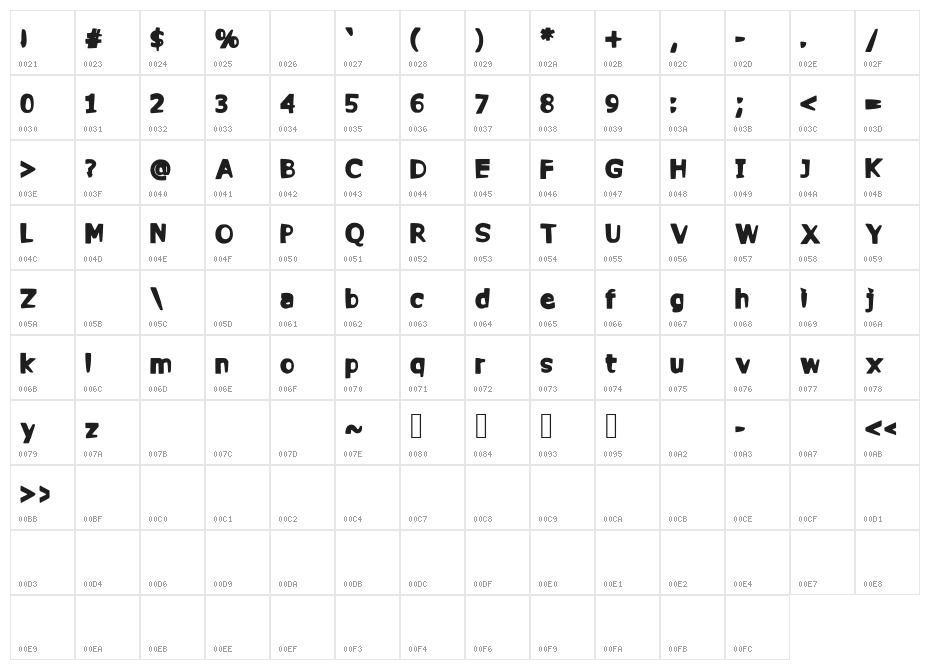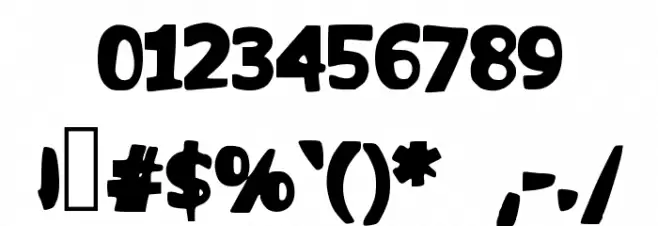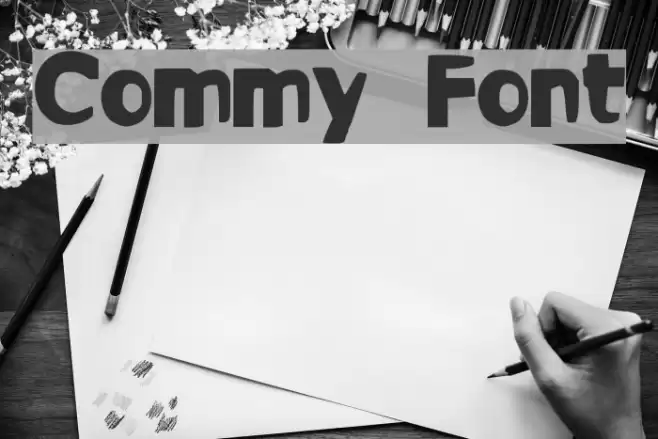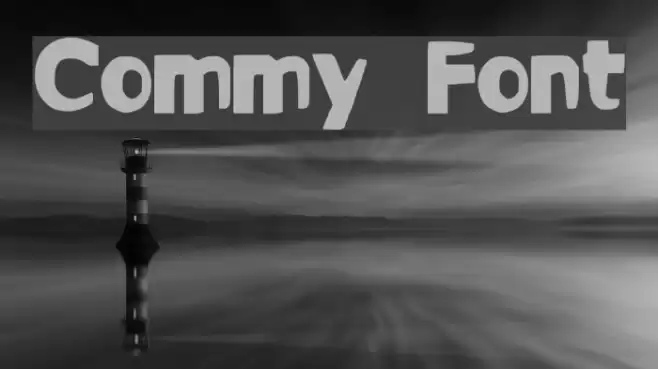
Commy Font
Commy Description
This font features a bold and playful style with a strong presence. The characters are rounded and slightly irregular, giving it a friendly and approachable feel. The uppercase letters are robust and commanding, while the lowercase letters maintain a consistent and harmonious flow. Numbers are equally bold, ensuring readability and impact. The special characters are creatively designed, maintaining the overall playful aesthetic. This font is ideal for projects that require a fun and engaging look, such as children's books, playful branding, or creative posters.
| Overall Style | Playful, Fun, Engaging |
| Proposed Projects | Children's books, playful branding, creative posters, and fun packaging designs. |